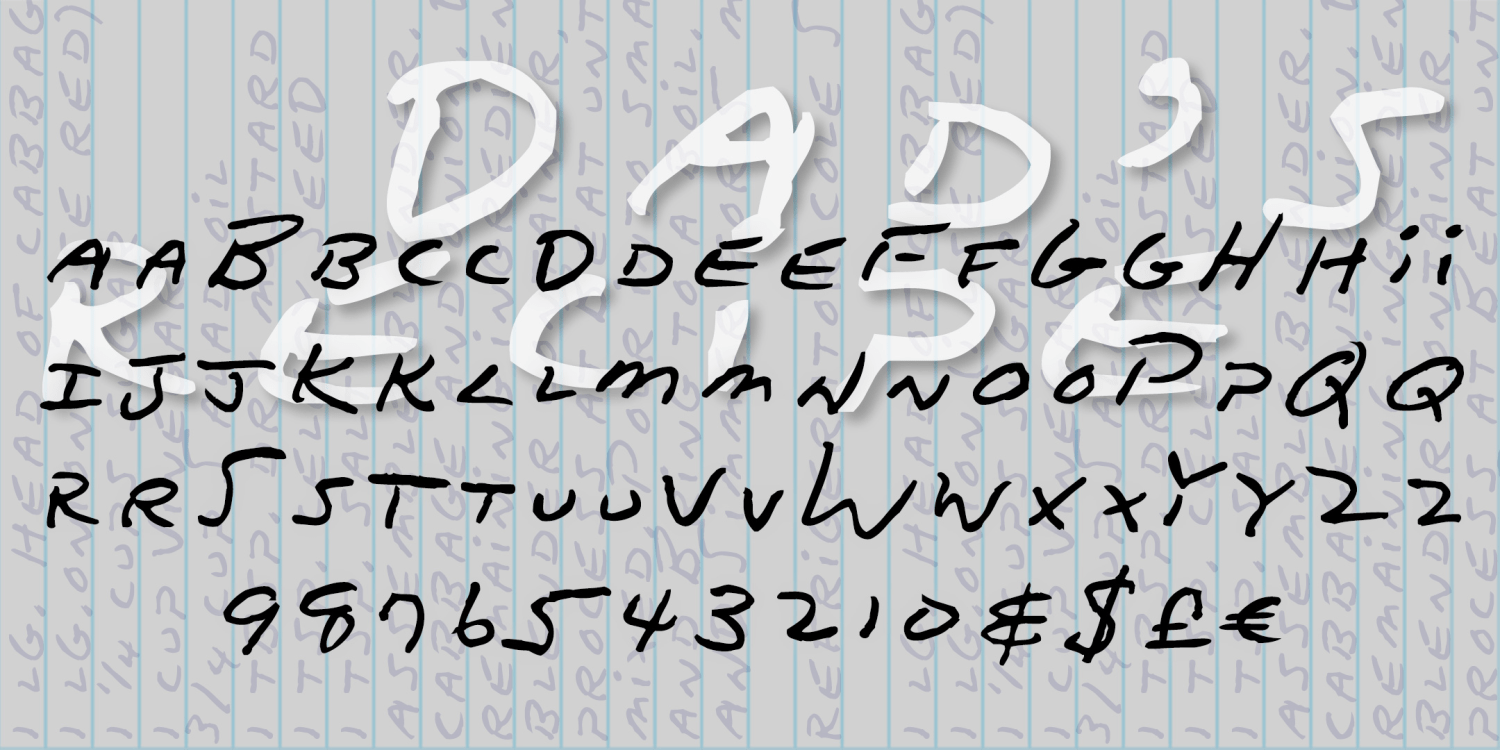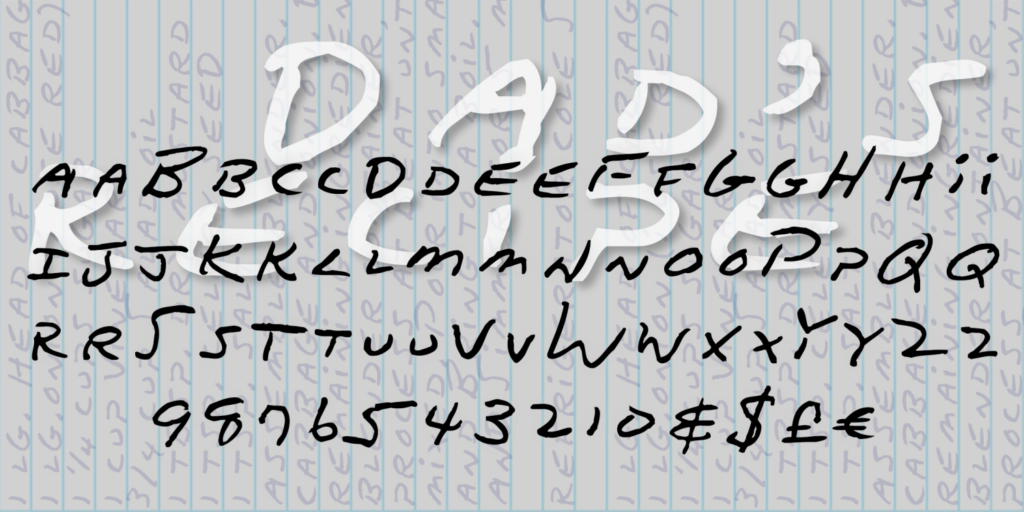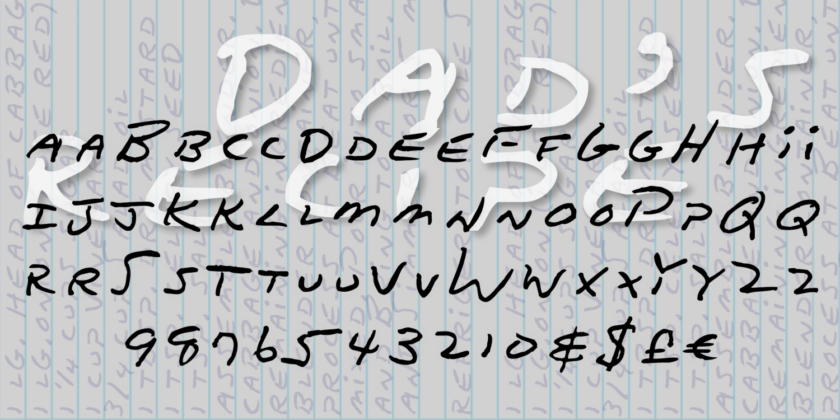
Dad\’s Recipe
About Dad\’s Recipe
Dad's Recipe is derived from my father's hand printing. I used a recipe he had written out for me (for cole slaw specifically) and rounded it out with other samples from my cookbook. Dad almost always used a blue ballpoint pen on lined tablet…